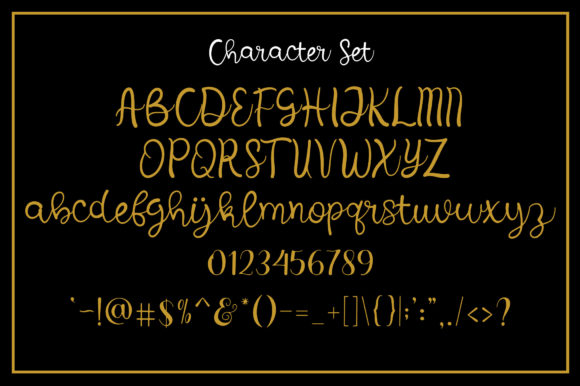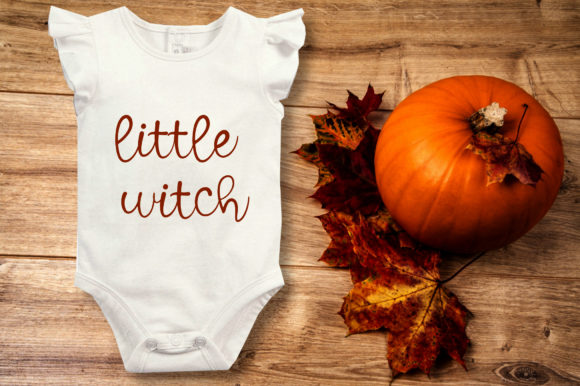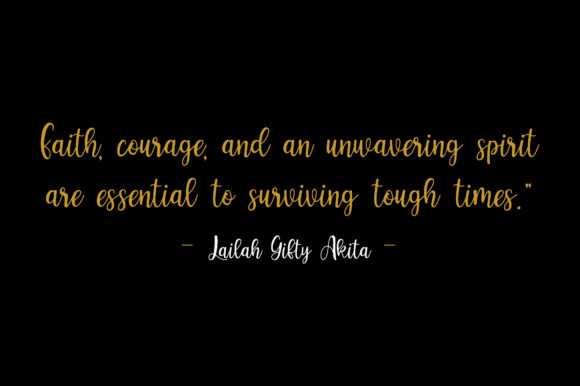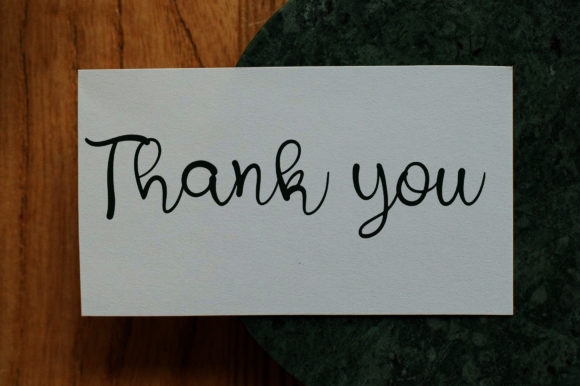
Baby Witch Font: The Ultimate Elegance for Your Designs
In the world of typography, fonts play a crucial role in conveying the tone and style of a design. For those seeking a touch of elegance and sophistication, the Baby Witch Font is an excellent choice. This stylish and incredibly elegant script font has captured the hearts of designers and crafters alike, and for good reason.
What Makes Baby Witch Font So Special?
Baby Witch Font is a beautiful, handwritten script font that exudes refinement and luxury. Its flowing lines, delicate curves, and intricate details make it perfect for designs that require a personal touch. Whether you’re creating wedding invitations, thank you cards, quotes, greeting cards, logos, or business cards, this font is sure to impress.
One of the standout features of Baby Witch Font is its versatility. It can be used in a wide range of design applications, from formal events like weddings and anniversaries to everyday stationery and branding materials. The font’s elegance and sophistication make it an excellent choice for:
- Wedding invitations and ceremony programs
- Quotes and inspirational posters
- Greeting cards for special occasions
- Logos and branding materials for businesses
Why Designers and Crafters Love Baby Witch Font
Designers and crafters love Baby Witch Font for several reasons:
- Elegance: The font’s elegant and refined appearance adds a touch of sophistication to any design.
- Readability: Despite its intricate details, Baby Witch Font is surprisingly easy to read, making it perfect for body text and headings.
- Uniqueness: The font’s unique and distinctive style sets it apart from more common fonts, making it ideal for designs that require a personal touch.
Tips for Using Baby Witch Font Effectively
To get the most out of Baby Witch Font, here are a few tips to keep in mind:
- Use it sparingly: While Baby Witch Font is beautiful, it can be overwhelming if used excessively. Use it for headings, titles, or special text to create visual interest.
- Pair it with complementary fonts: Combine Baby Witch Font with simpler fonts to create contrast and visual hierarchy.
- Experiment with colors and textures: Add depth and interest to your design by experimenting with different colors and textures.
In conclusion, Baby Witch Font is a stunning and elegant script font that is perfect for designers and crafters seeking to add a touch of sophistication to their designs. Its versatility, readability, and unique style make it an excellent choice for a wide range of design applications. Whether you’re creating wedding invitations, logos, or greeting cards, Baby Witch Font is sure to impress. So why not give it a try and see the magic it can bring to your designs?